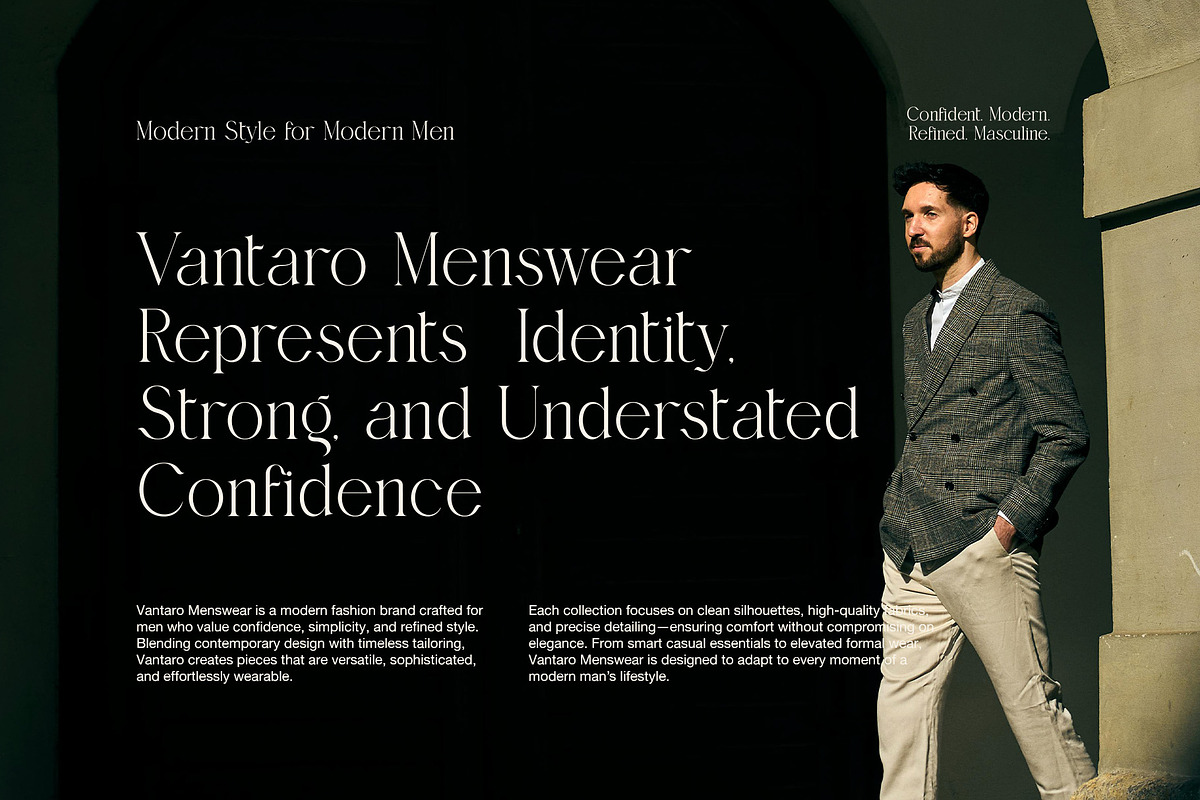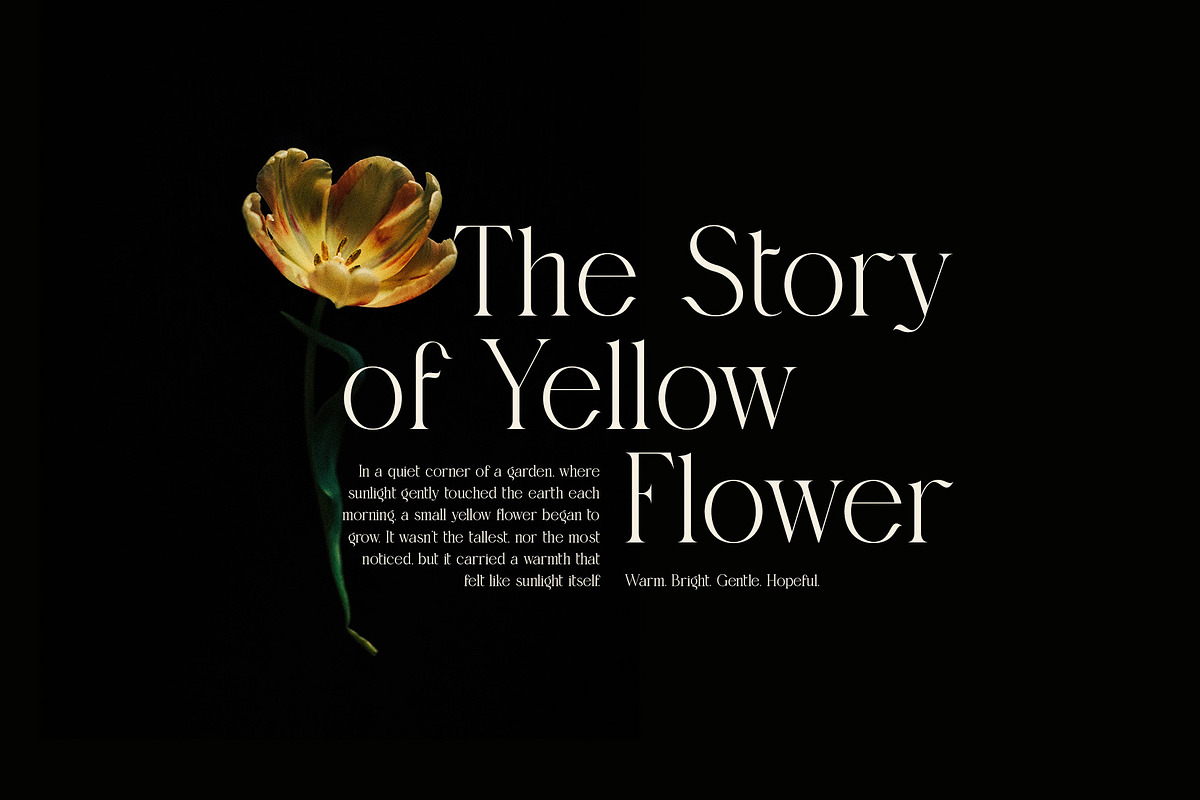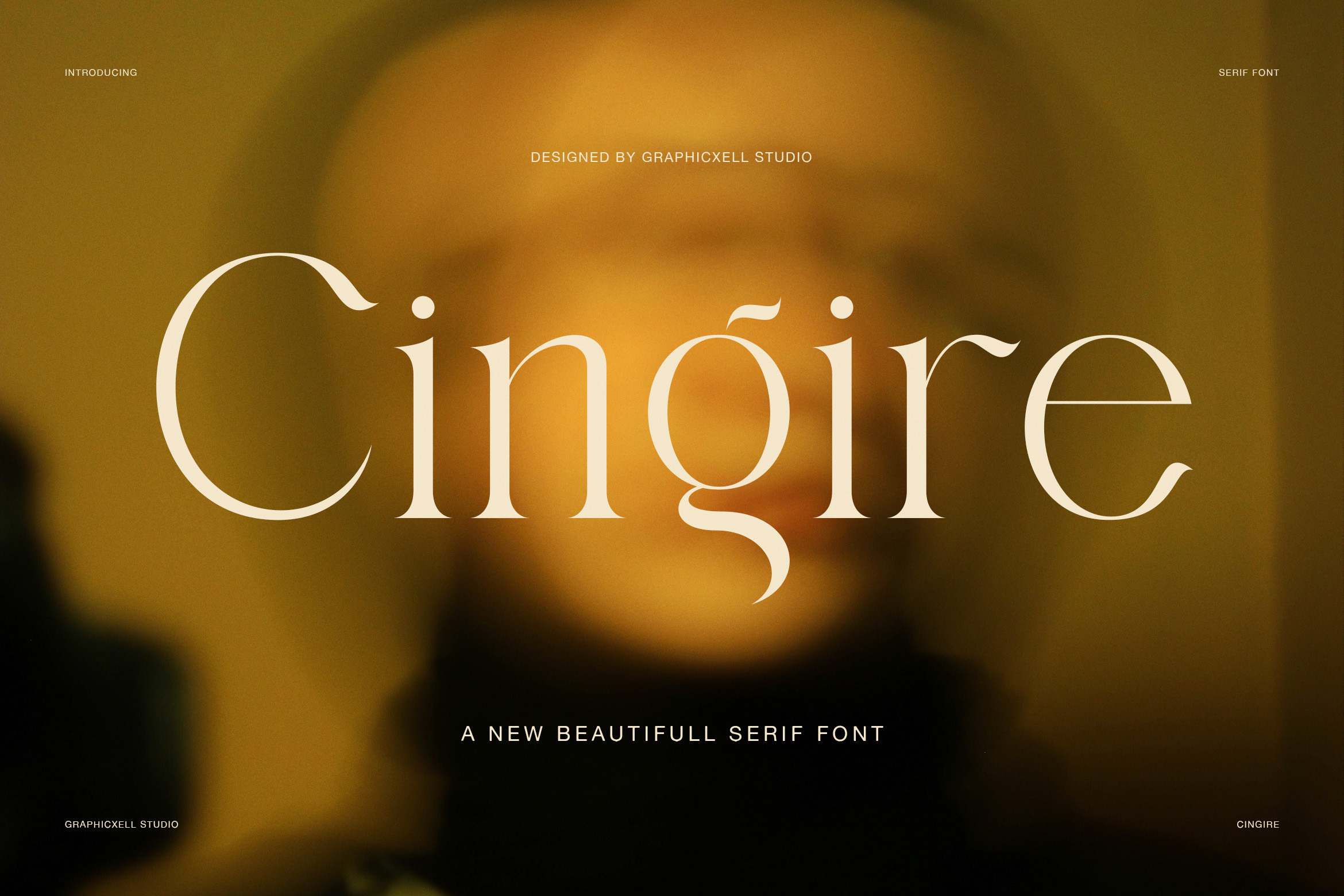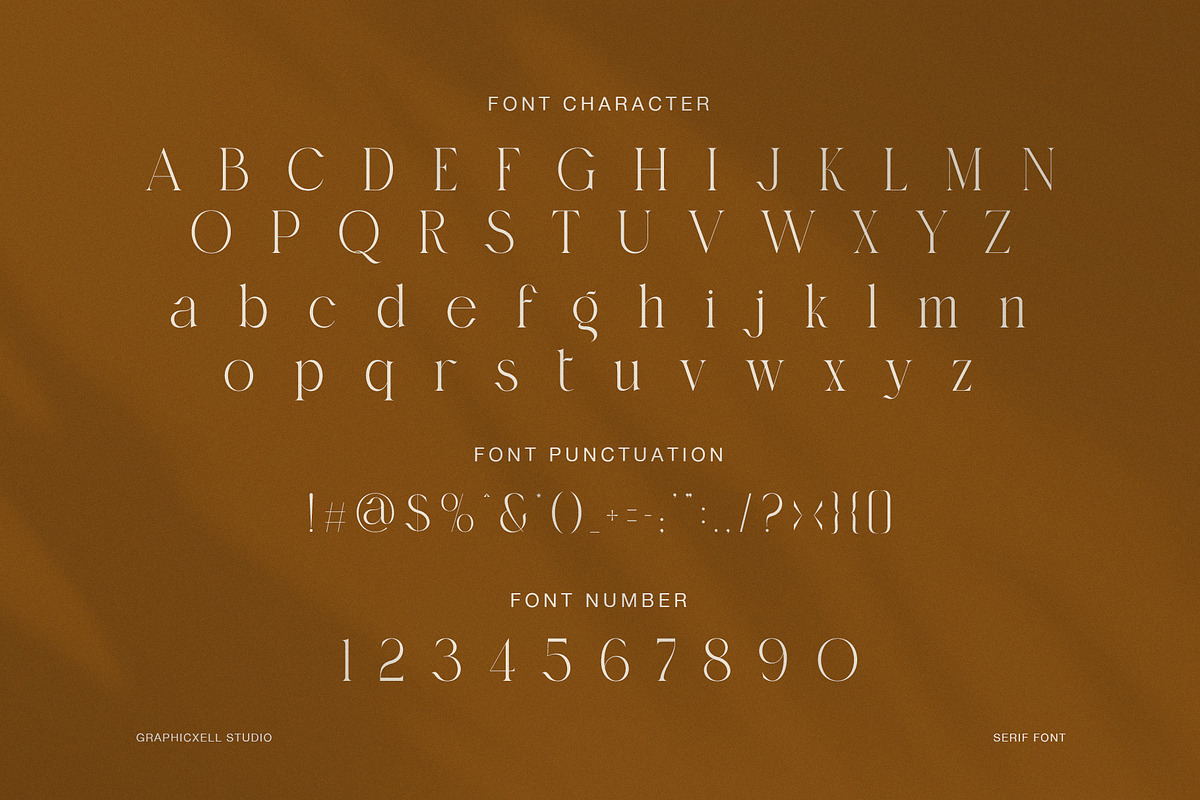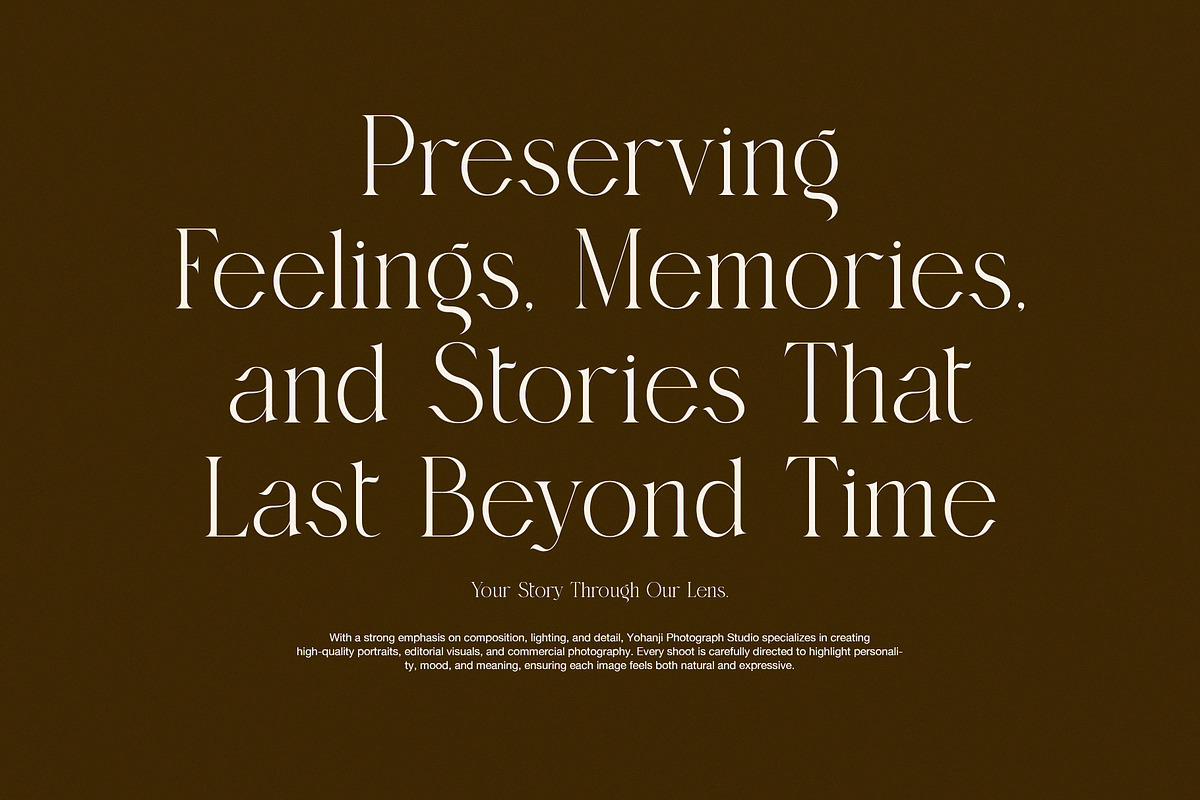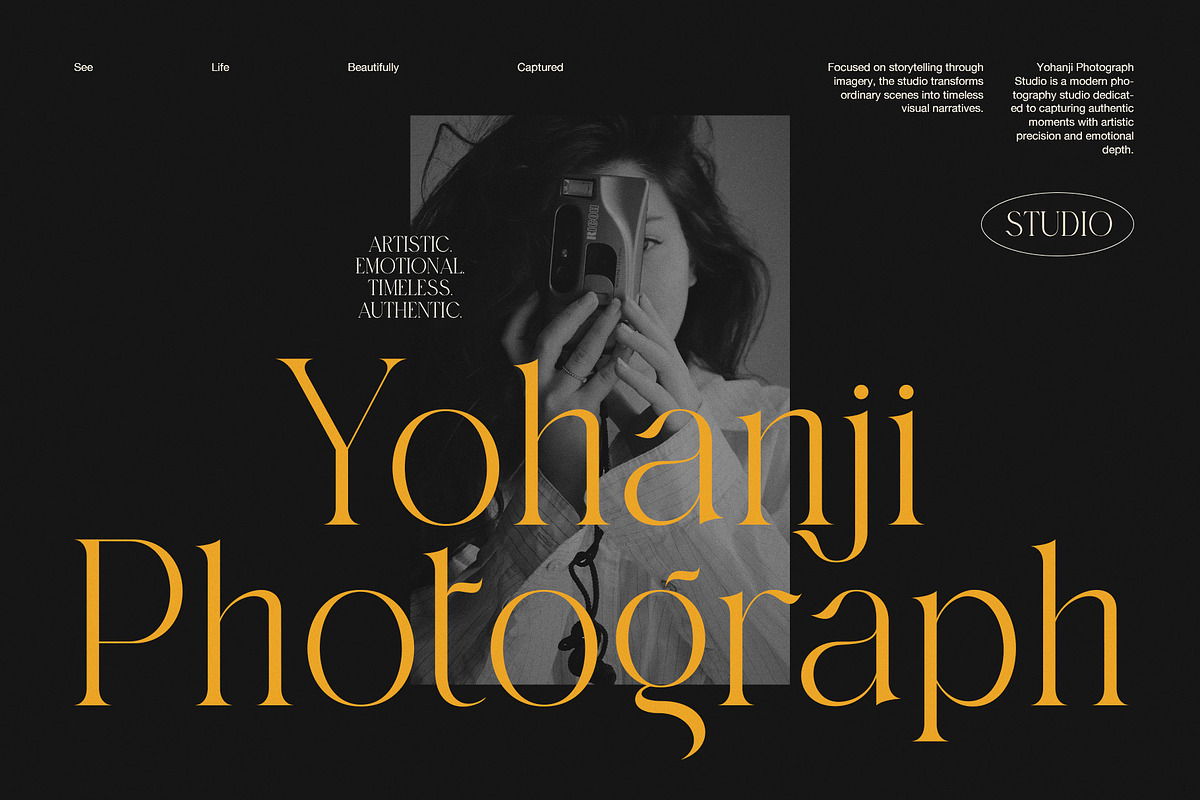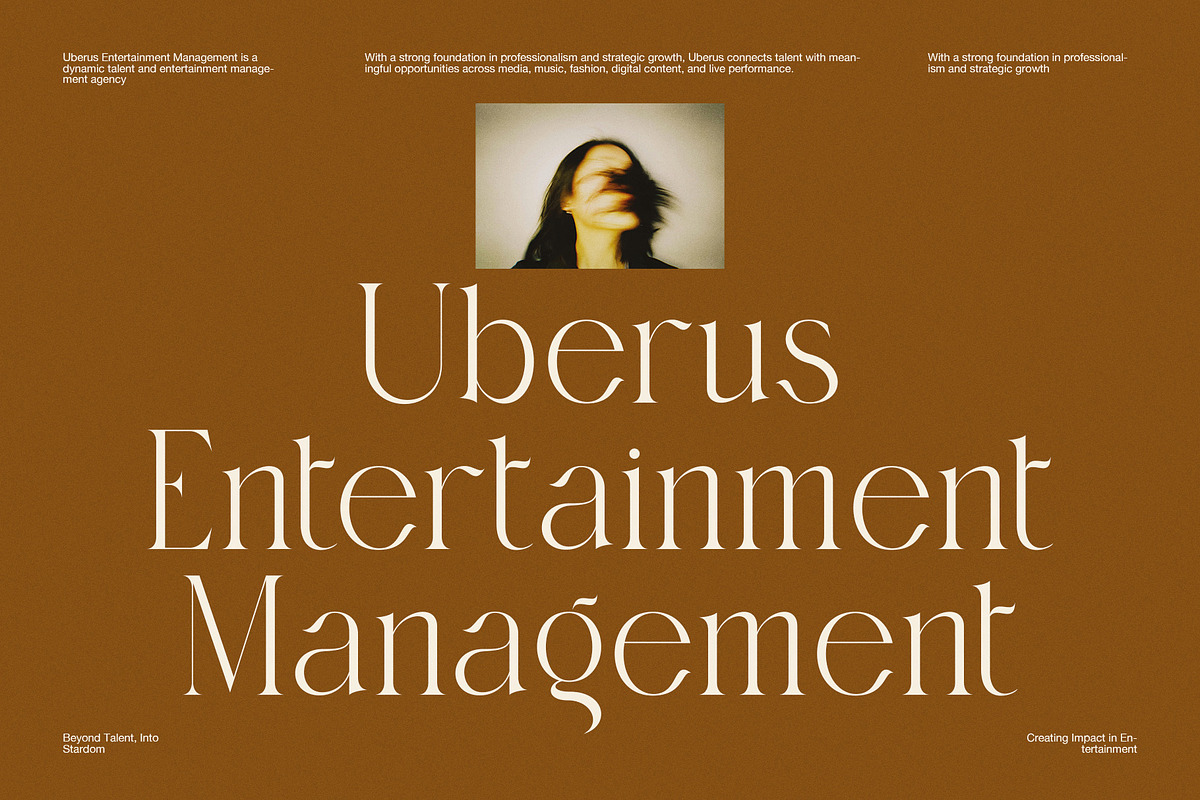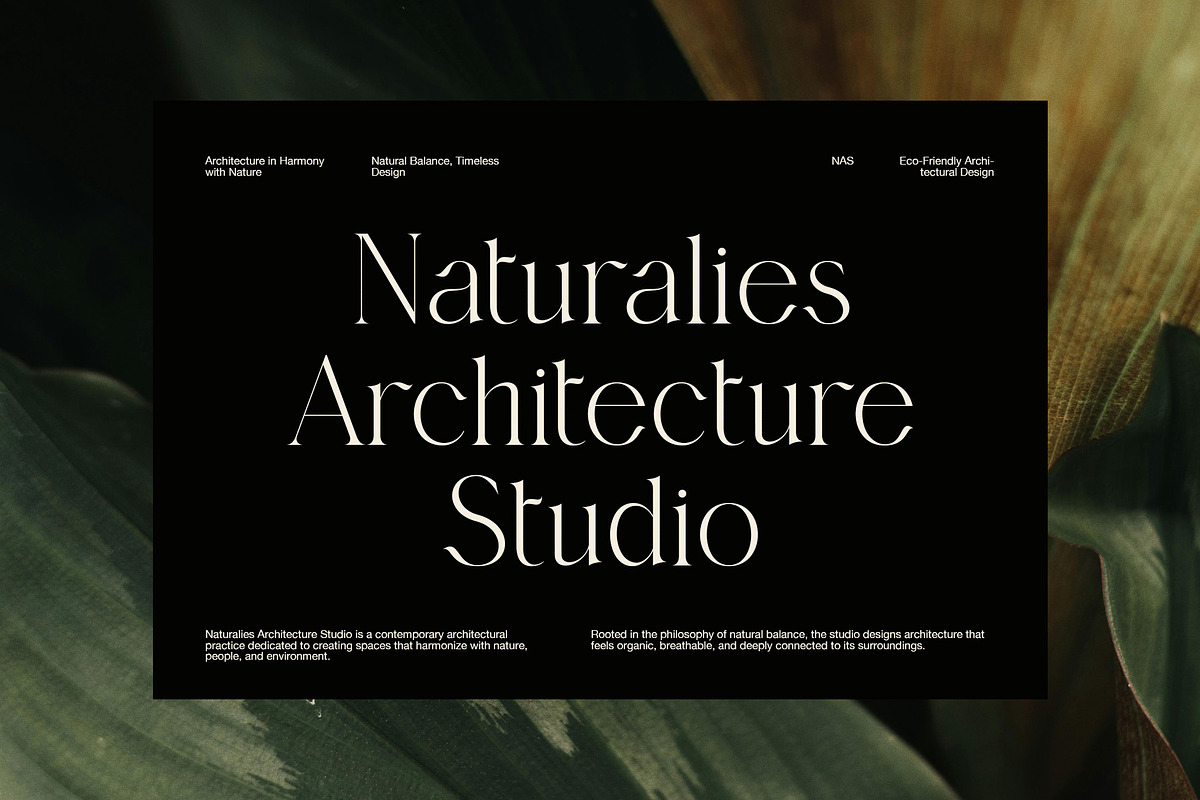
Cingire Elegant Serif Font
Cingire Elegant Serif Font is a refined display serif made for designers who want beauty, clarity, and modern grace in one typeface. At first glance, it feels soft and elevated. However, the more you study it, the more its character stands out. The letterforms are slim, high-contrast, and poised, so every word looks polished and intentional. Because of that balance, Cingire works beautifully in branding, editorials, and premium visual identities.
This font has a graceful rhythm. Its thin strokes, clean curves, and elegant proportions create a calm yet luxurious presence. Moreover, the serif details feel delicate rather than heavy, which gives the type a fresh and contemporary tone. The lowercase forms are especially charming, while selected characters add subtle flair and personality. As a result, headlines look stylish, names feel memorable, and layouts gain a more artistic voice.
Cingire is ideal for projects that need a sophisticated and fashion-forward mood. For example, it fits luxury logos, beauty brands, photography studios, boutique packaging, hotel identities, floral designs, architecture presentations, and editorial spreads. In addition, it performs well in posters, social media graphics, invitation designs, and modern website headers. So, whether you are building a brand or shaping a campaign, this font helps the message feel more premium.
Although Cingire is elegant, it still feels readable in display settings. Therefore, it is not only beautiful but also practical for titles, taglines, and short descriptive text. Likewise, its stylish structure pairs well with minimal layouts, rich photography, and clean branding systems.
Why designers may love Cingire:
Elegant serif style with a modern mood
High contrast for a refined visual impact
Slim, graceful letterforms with premium appeal
Beautiful for logos, editorials, and packaging
Works well in fashion, beauty, and lifestyle branding
Gives titles a calm, classy, and memorable look
Overall, Cingire Elegant Serif Font is a strong choice for designers who want timeless style with a modern edge. It feels luxurious, artistic, and composed. Yet it never looks stiff. Instead, it brings quiet confidence to every composition. If your project needs a serif font that looks chic, clean, and expressive, Cingire can give your design a truly elevated finish.